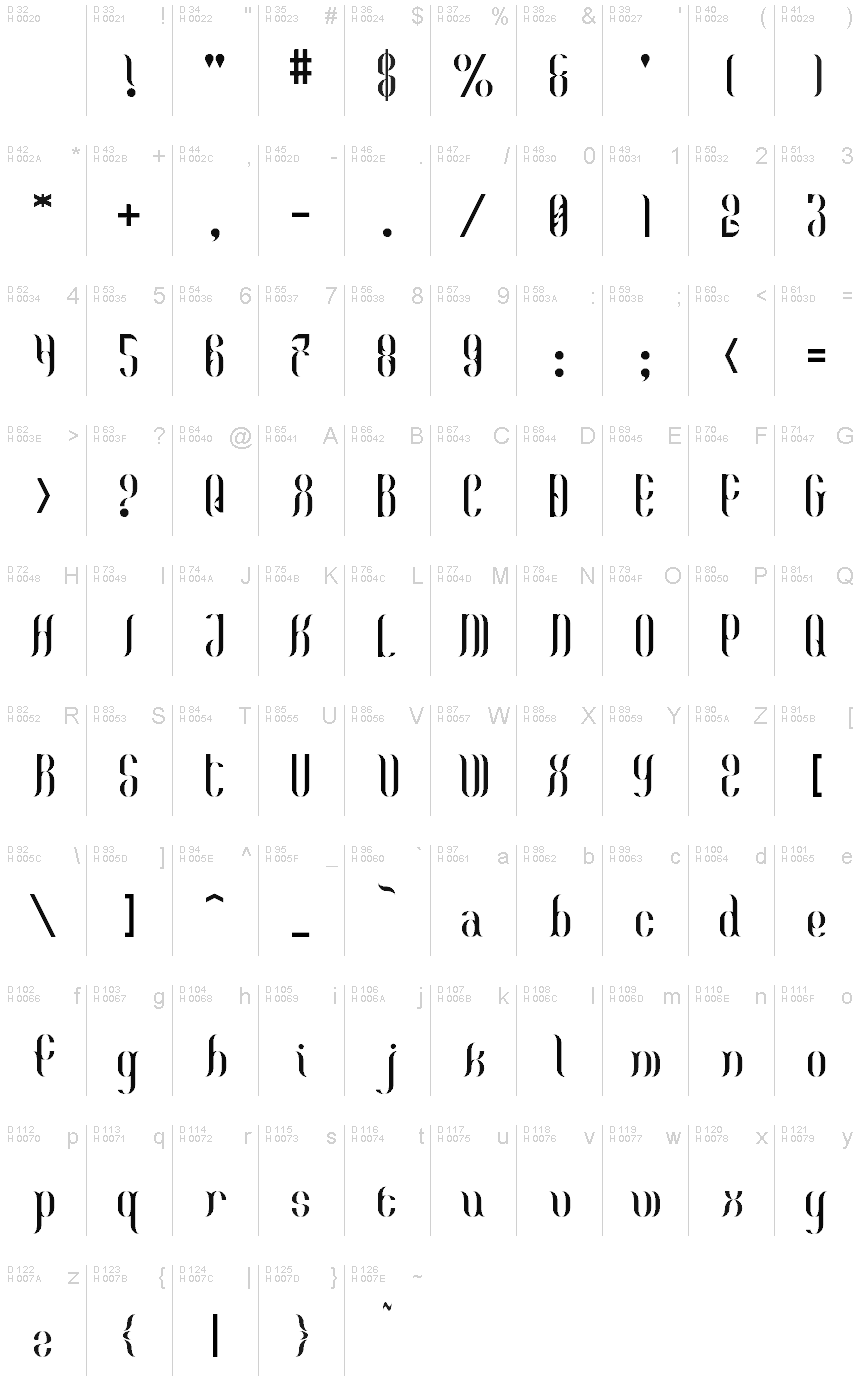
Sigilian Regular
Designer description: Iterated version of an unreleased design called "Midnight Oil". It's also slightly related to Dethzmezenger and Gehenna.
I went against a few of my own conventions for this one. The close spacing might look a bit strange at times, but it eliminates the need for kerning while also creating a unique look. The overlapping spurs make me think of thorny plants!
This is an original design, but it does make me think of Planescape: Torment when I look at it, thus the name!